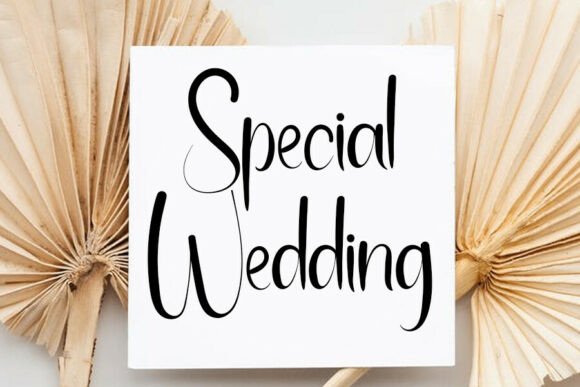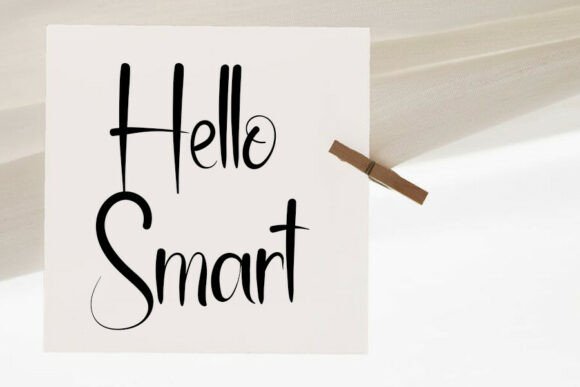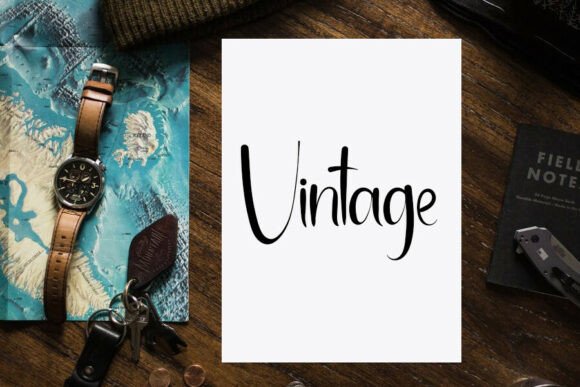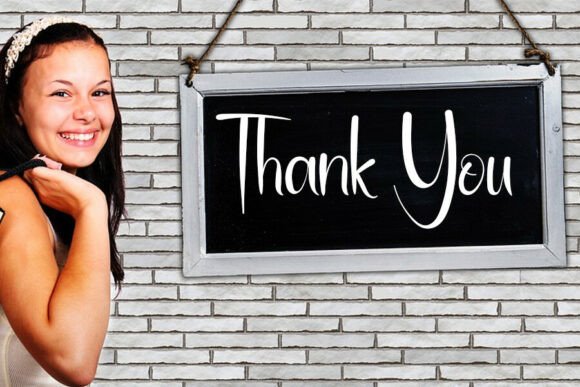
Introducing Ballpoint: Elevate Your Designs with Elegance and Sophistication
In the world of design, fonts play a crucial role in conveying messages, expressing creativity, and establishing brand identity. Among the myriad of fonts available, Ballpoint stands out as a vibrant and elegant choice, designed to add an air of sophistication to your creative projects. Whether you’re a designer, crafter, or business owner, Ballpoint is the perfect companion to elevate your visual storytelling.
The Versatility of Ballpoint Font
Ballpoint is not just another font; it’s a versatile tool that can be used across various platforms and design materials. Its adaptability makes it an ideal choice for:
- YouTube Banners: Create eye-catching banners that reflect your channel’s personality and style.
- Wedding Invitations: Add an exquisite touch to your wedding invites, making them truly unforgettable.
- ID Cards: Design professional and sleek ID cards that make a lasting impression.
- Flyer Designs: Craft impactful flyers that capture attention and communicate your message effectively.
Why Choose Ballpoint?
Ballpoint doesn’t just promise an aesthetic upgrade; it’s an investment in your business’s future, a catalyst for progress and growth. Here are a few reasons why Ballpoint stands out:
- Unique Charm: While simplistically beautiful, Ballpoint brings a unique charm that distinguishes your work from the ordinary.
- Elegance and Sophistication: Add an air of sophistication to your designs, making them more engaging and professional.
- Simplicity Meets Uniqueness: Ballpoint strikes the perfect balance between simplicity and uniqueness, making your designs memorable.
Transform Your Design Narrative
With Ballpoint at your disposal, your crafts and logo mockups will never look the same. This font is more than just a design element; it’s a storytelling tool that can transform your design narrative. By incorporating Ballpoint into your projects, you’re not just enhancing their visual appeal; you’re also adding a layer of sophistication and elegance that resonates with your audience.
Tips for Using Ballpoint Effectively
To make the most out of Ballpoint, consider the following tips:
- Pair it Wisely: Combine Ballpoint with complementary fonts to create visual harmony and hierarchy in your designs.
- Experiment with Sizes: Play with different font sizes to emphasize key messages and create visual flow.
- Color Matters: Choose colors that align with your brand palette or design theme to ensure consistency and coherence.
Ballpoint is more than just a font; it’s a design companion that can elevate your creative projects to new heights. Its elegance, sophistication, and unique charm make it an ideal choice for designers, crafters, and businesses looking to make a lasting impression. By incorporating Ballpoint into your design toolkit, you’re investing in a catalyst for progress and growth. Transform your design narrative today with Ballpoint, where simplicity meets uniqueness.